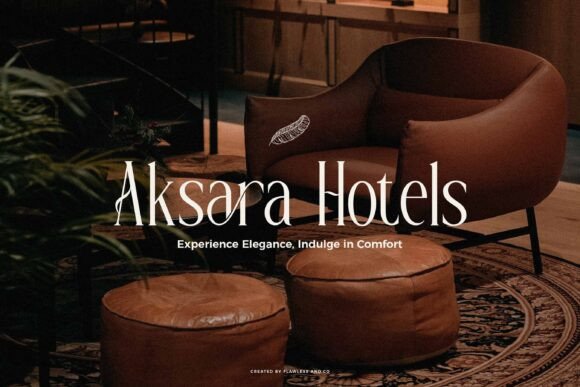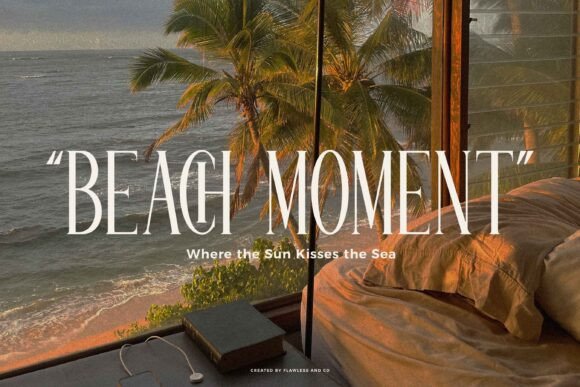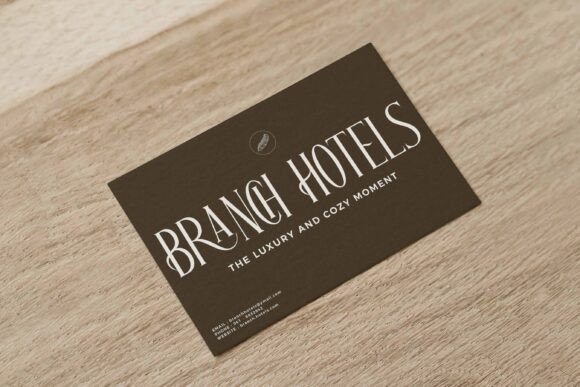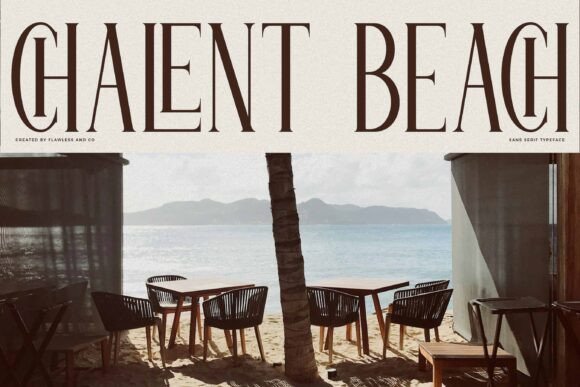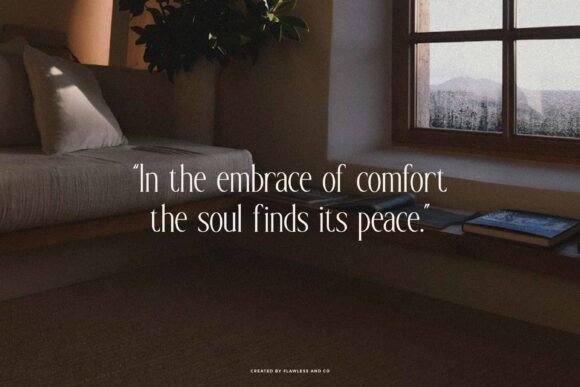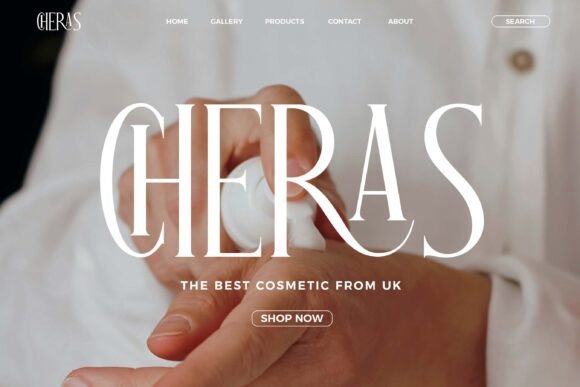
Introduction to Heranch Font
Have you ever stared at a blank page, searching for the perfect font to bring your creative project to life? The hunt for the ideal design resource can be a daunting task, especially when you’re aiming for a high-quality, elegant look. For many designers, the answer lies in the refined display serif font, Heranch Font. This beautiful typeface is a masterclass in balance, blending classic tradition with modern style to deliver a timeless beauty that’s perfect for any upscale design.
Whether you’re crafting a stunning editorial design, creating a fashion brand, or designing an invitation, Heranch Font is a versatile choice that’s sure to impress. Its delicate serifs and high contrast details make it a standout option for designers who value elegance and clarity. With a transparent background, you can easily integrate this high-quality font into your creative project, free to experiment and push the boundaries of your design.
As a valuable addition to any design toolkit, Heranch Font is a must-have for designers who crave a sophisticated, modern look without sacrificing classic style.
Key Features of Heranch Font
- High-quality design resource ideal for creative projects, including logos, branding, and graphics.
- Unique characteristics include a modern, minimalist aesthetic and a wide range of customization options.
Honest Review: Heranch Font
I recently came across the Heranch Font while searching for a high-quality design resource to use in a creative project. As a designer, I was excited to give it a try and see how it would perform.
- ✨ The Heranch Font has a beautiful, elegant design that makes it perfect for projects that require a touch of sophistication.
- ⚠️ The font is limited to a single weight and style, which may not be suitable for projects that require a range of different typography options.
- ⚠️ The font may not be suitable for use in small text sizes, as the letters can become blurry and difficult to read.
Overall, I was impressed with the Heranch Font and would recommend it to designers who are looking for a high-quality, elegant font to use in their creative projects. While it has some limitations, the font’s strengths far outweigh its weaknesses.
Heranch Font is suitable for a wide range of creative projects, including logos, business cards, brochures, and social media graphics. You can also use the font to create custom invitations, posters, and flyers. With its high-quality design and transparent background, Heranch Font is an excellent choice for designers who want to create unique and professional-looking designs.